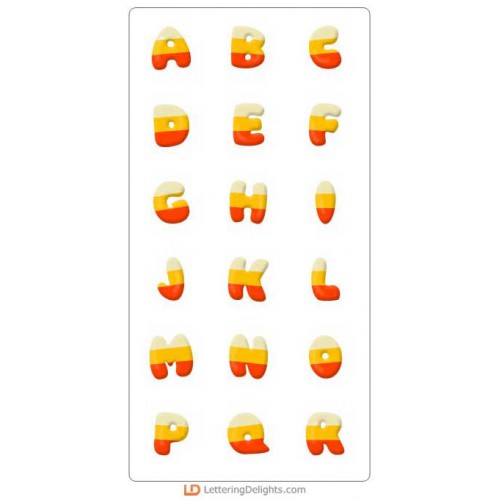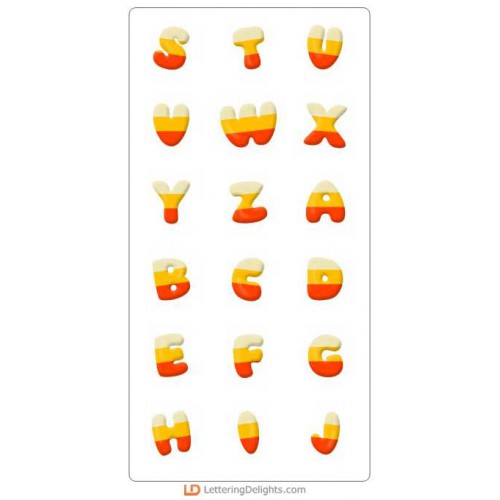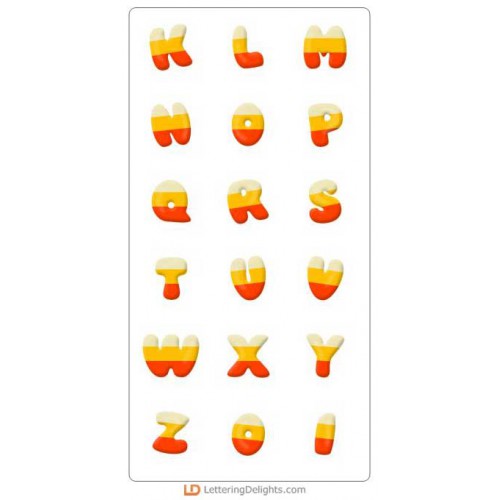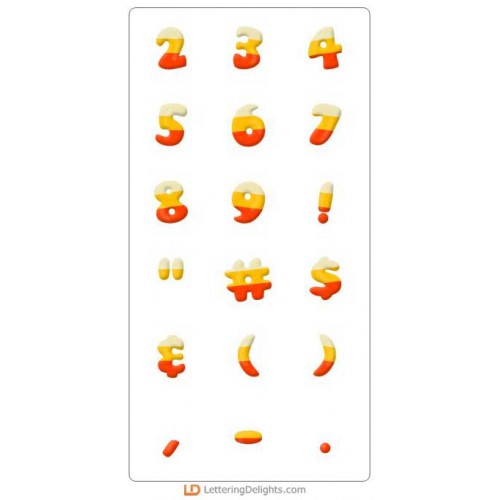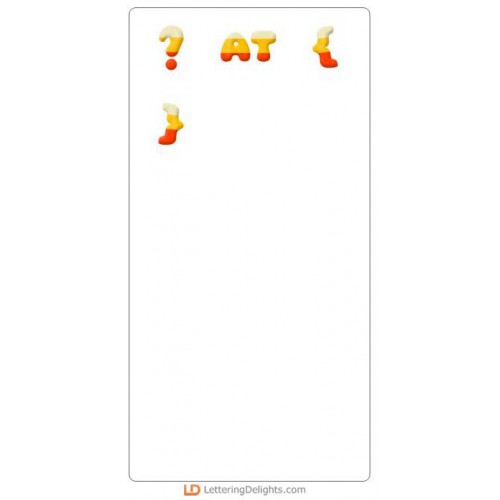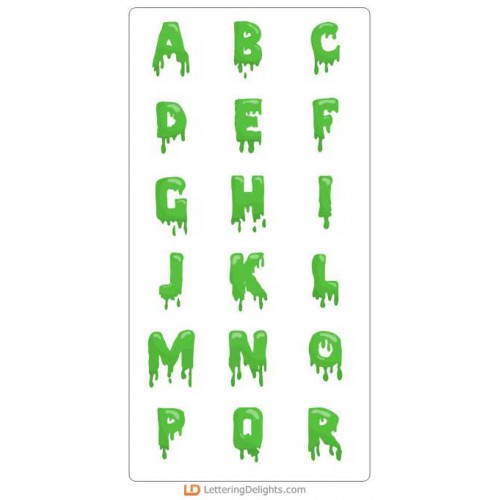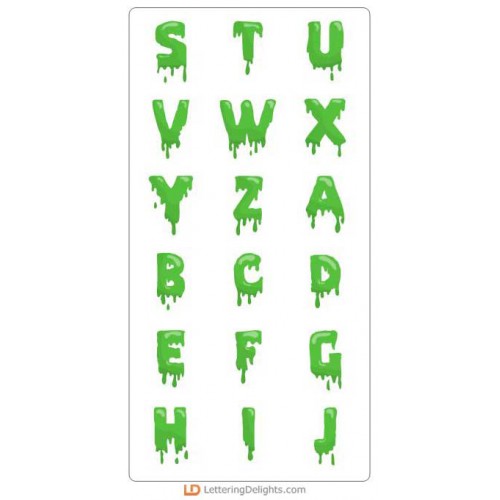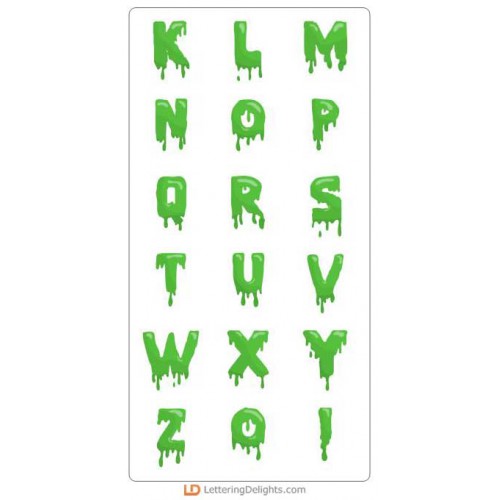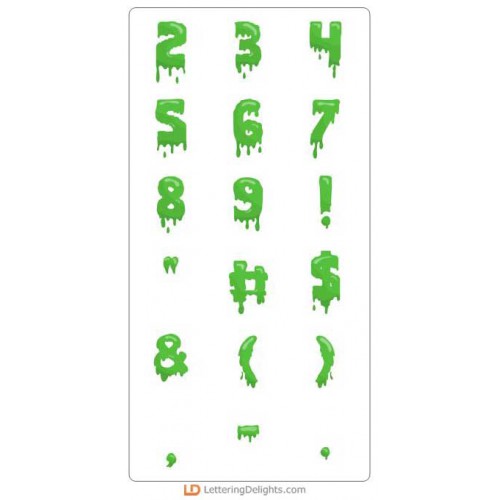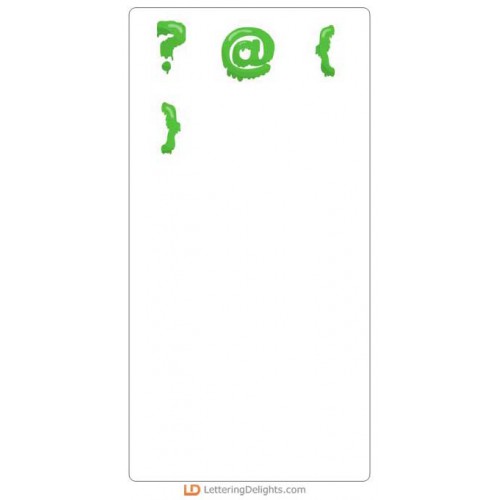
Monstrous Top Ten Alphabets
Smell My Feet - AL
"Trick or Treat, Smell My Feet!" Halloween is just around the corner and we've got all you'll need ..
Black Magic - AL
When expressing some eerie observations, the Black Magic alphabet will convey your chronicles fright..
Trick or Treat Kids - AL
Hmmm. What should I be this year? Here's an alphabet with 26 answers to that very question. Don't yo..
Best Witches - AL
Want to send a spooky message, but in an alarmingly darling way? The Best Witches Alphabet is lurkin..
Cirque Du Scar-ree - AL
Little Boo-ligans - AL
I Love Candy Corn - AL
It Oozes - AL
Ink and Eyes - AL
Polka Stripe Halloween Type - AL